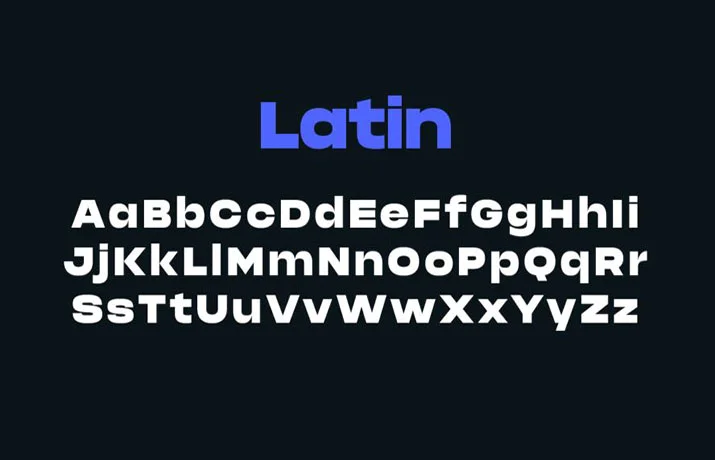
Phonk Font is a bold and wide sans serif typeface that has an aggressive and edgy feel. It was designed by Slava Antipov and published by Slava Antipov.
Due to its bold texture, it can work perfectly, especially for display use. Its grotesque shapes & sharp letterforms create flexibility that adds extra creativity throughout the typeface.
This strong typeface can be used for a wide range of purposes such as headlines, logos, social media posters, banners, advertisements, music albums, and other tasks requiring strong and bold typography.
“Phonk typeface contains the following 4 styles: Regular, Regular Italic, Contrast, and Contrast Italic. It has very wide language support (95+ languages). The font includes Latin and Cyrillic scripts.”
- You can use it for headlines, online content, posters, brochures, flyers, logo design, book covers, paragraphs, quote sites, business cards, special event cards, product designs, product packaging, advertisements, posters, book covers, social media banners, headers, flyers, youtube thumbnails, signs, titles, textual motives, and a lot more because of its straightforward and uncluttered appearance.
This font supports 95 languages.
What is Phonk Font?
Phonk Font is a bold and wide sans serif typeface that has an aggressive and edgy feel. It was designed by Slava Antipov and published by Slava Antipov.